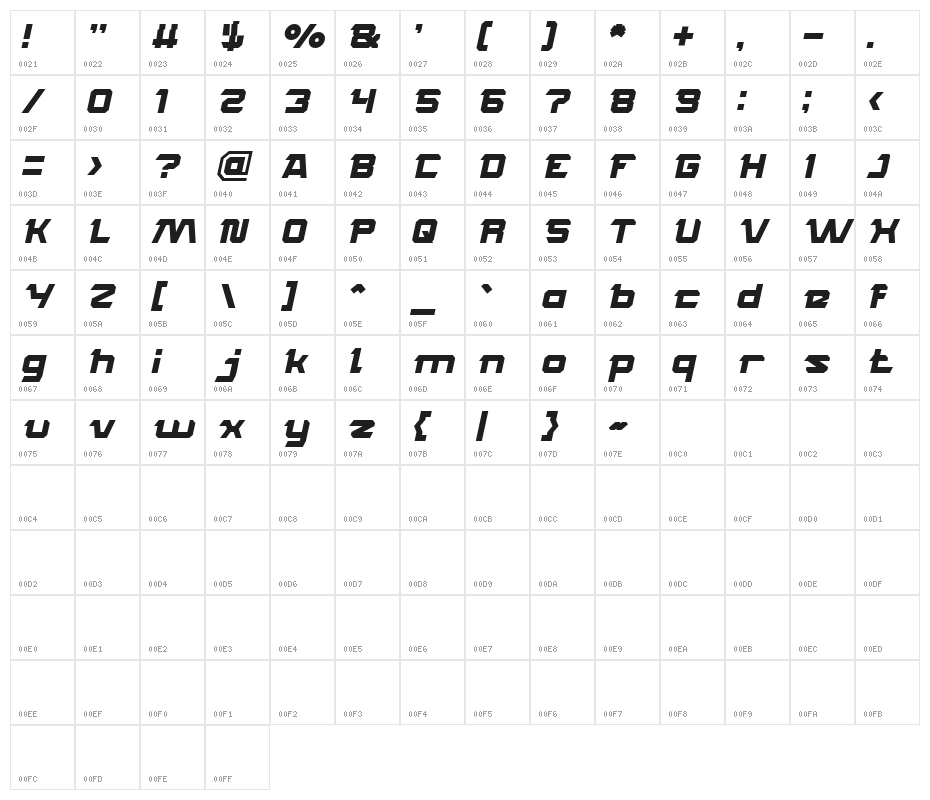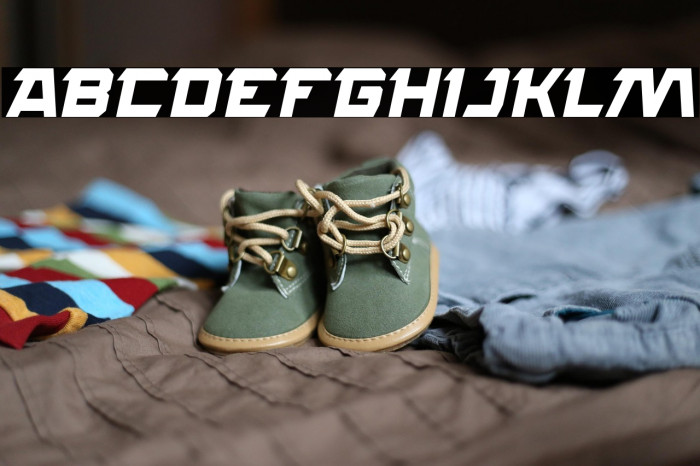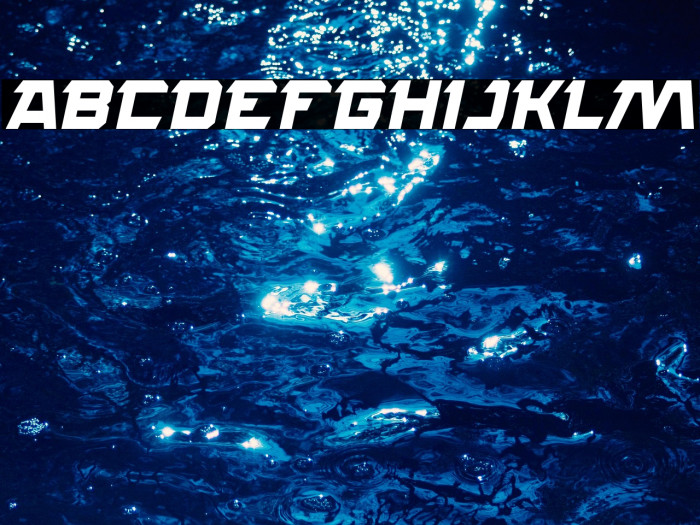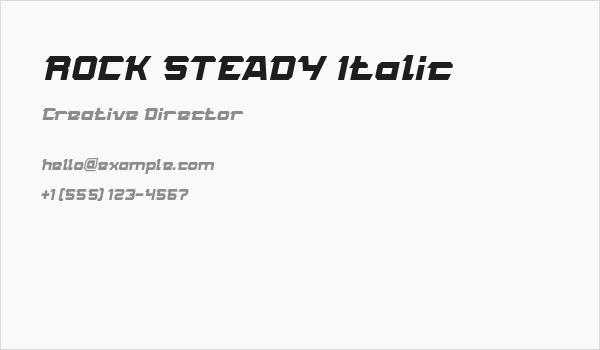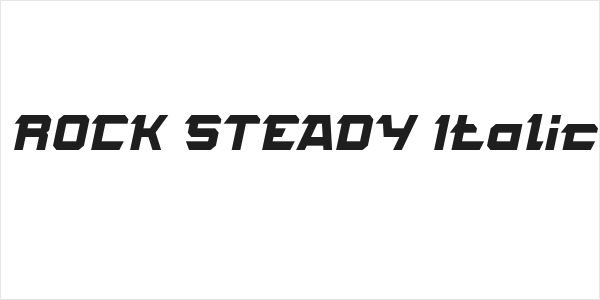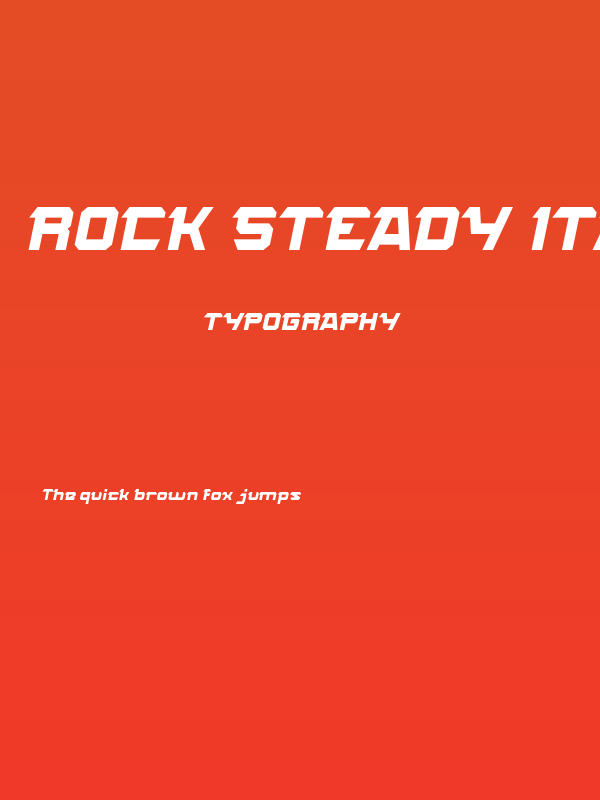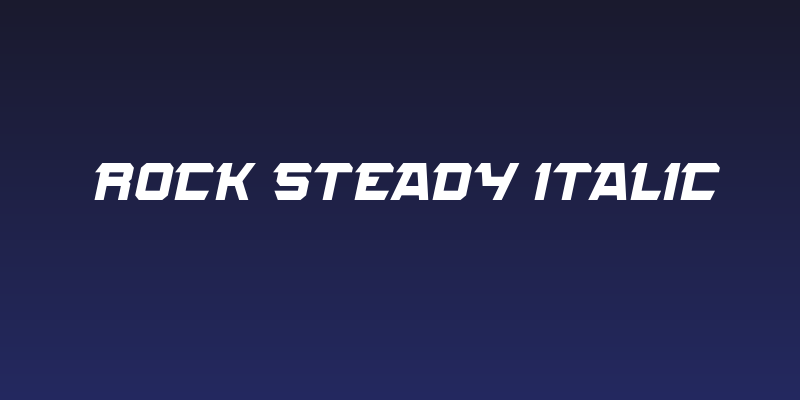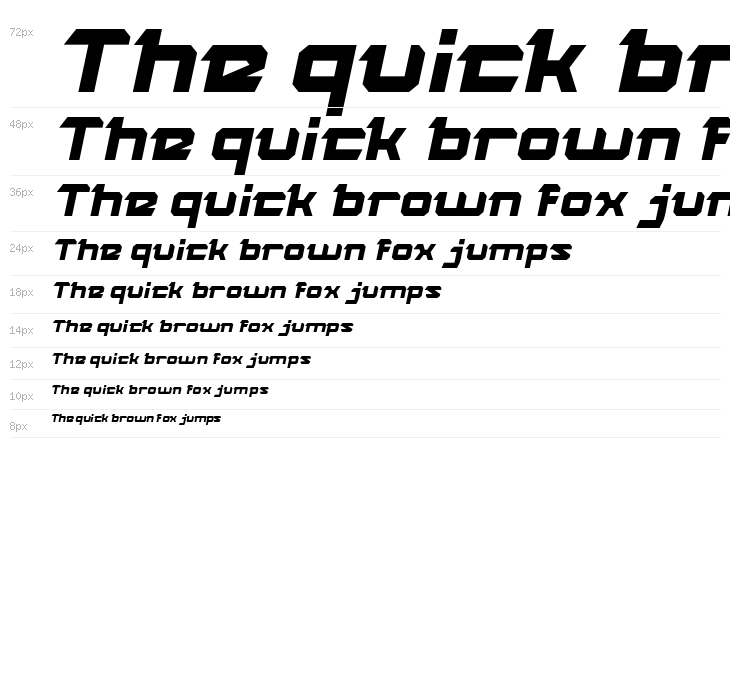
ROCK STEADY Italic Font
ROCK STEADY Italic Description
This font features a bold, angular design with a distinct italic slant, giving it a dynamic and energetic appearance. The characters are sharply defined with a geometric structure, creating a sense of movement and modernity. The uppercase and lowercase letters maintain a consistent style, with the lowercase letters mirroring the angularity of the uppercase. Numbers and special characters are designed to match the overall aesthetic, ensuring uniformity across all glyphs. The font's boldness and unique style make it stand out, suitable for projects that require a strong visual impact.
| Proposed Projects | Ideal for sports branding, dynamic posters, video game titles, and any project needing a bold, energetic typeface. |